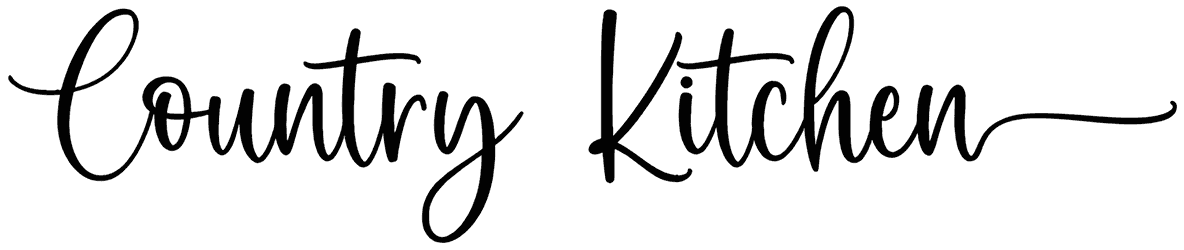
Country Kitchen Font
Say hello to Country Kitchen, an organic, yet groovy, handwritten font with lots of charms that will allow you to bring your imagination to design easily. It supports uppercase and lowercase letters, numbers, and punctuation with minimal swashes, but might be a bit unreadable. This font can be a perfect choice for greeting cards, taglines, special events, shopping bags, commercials, and more.